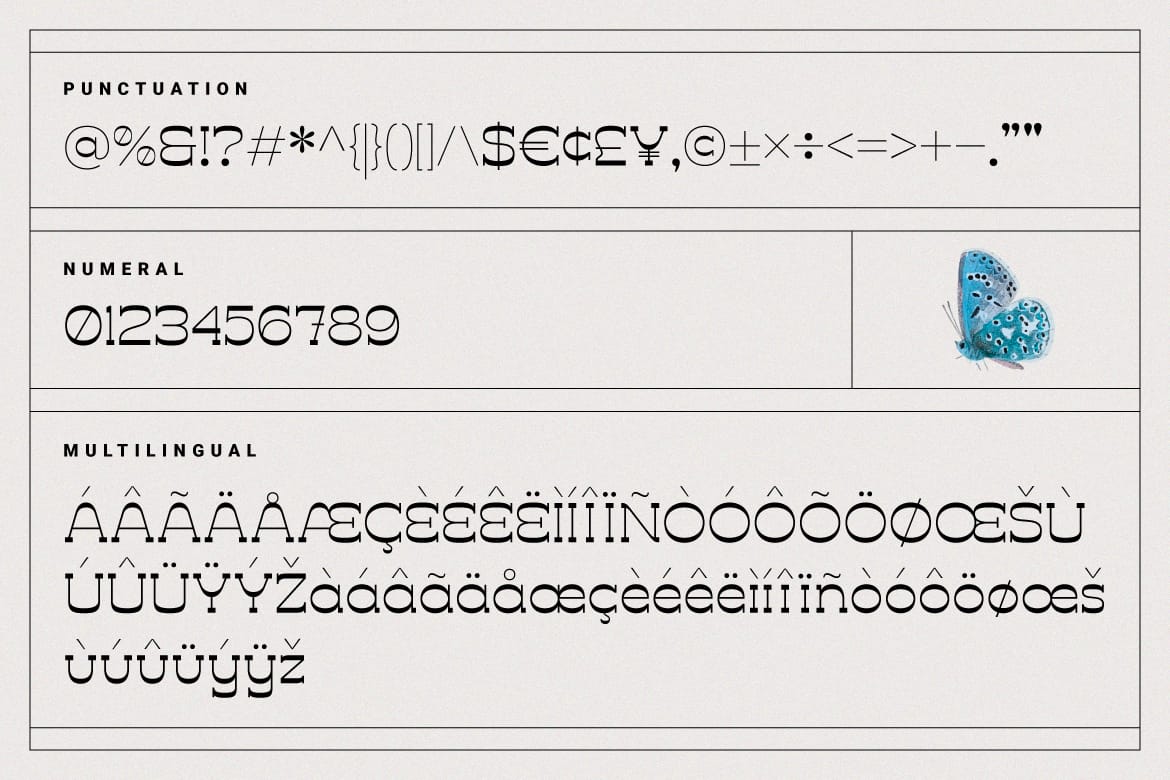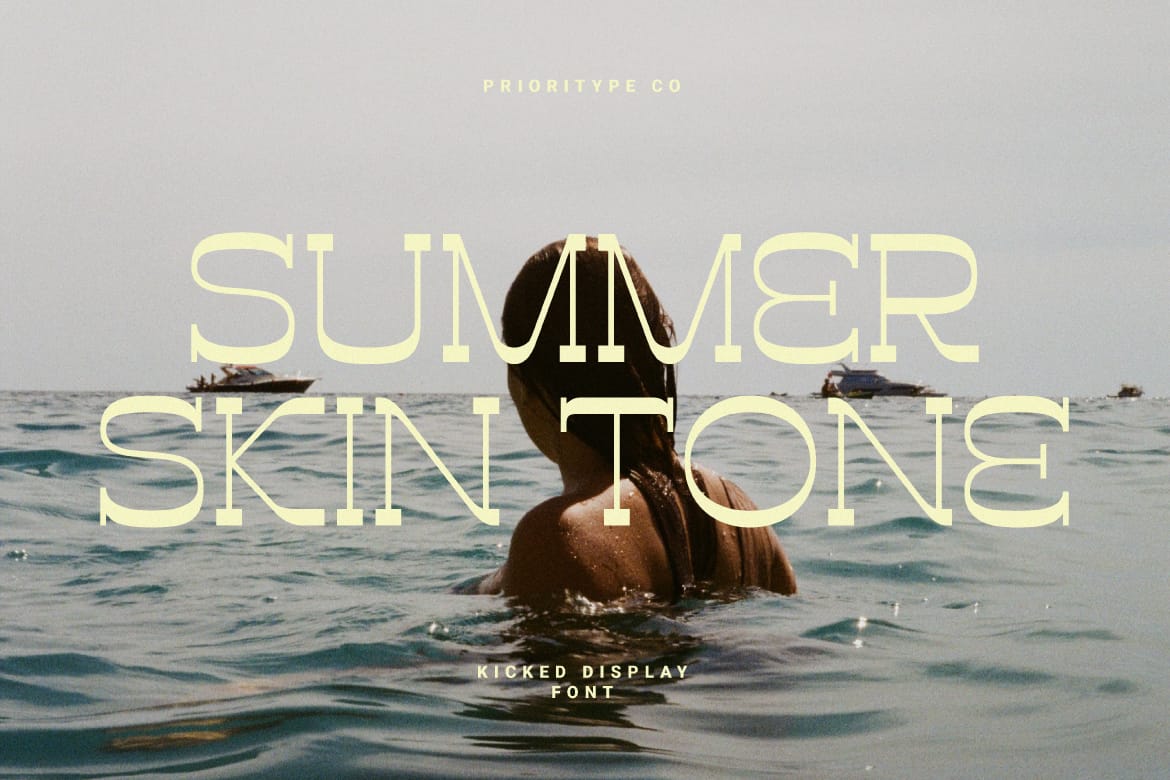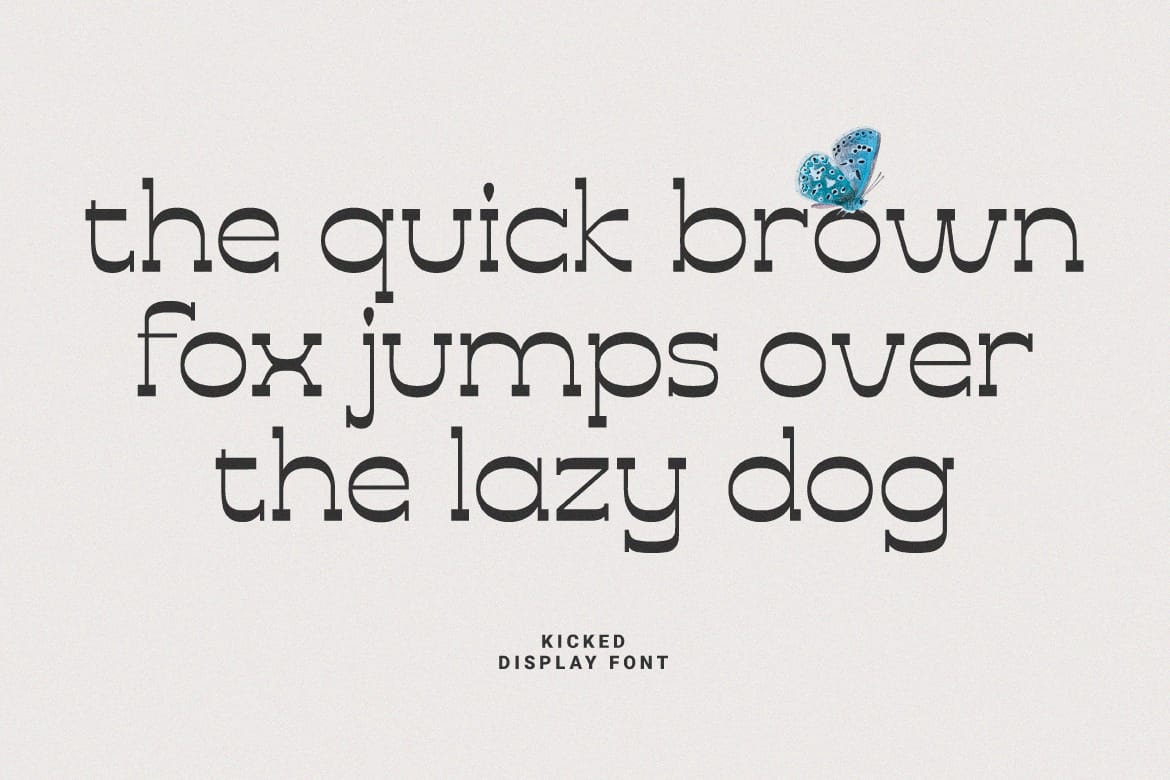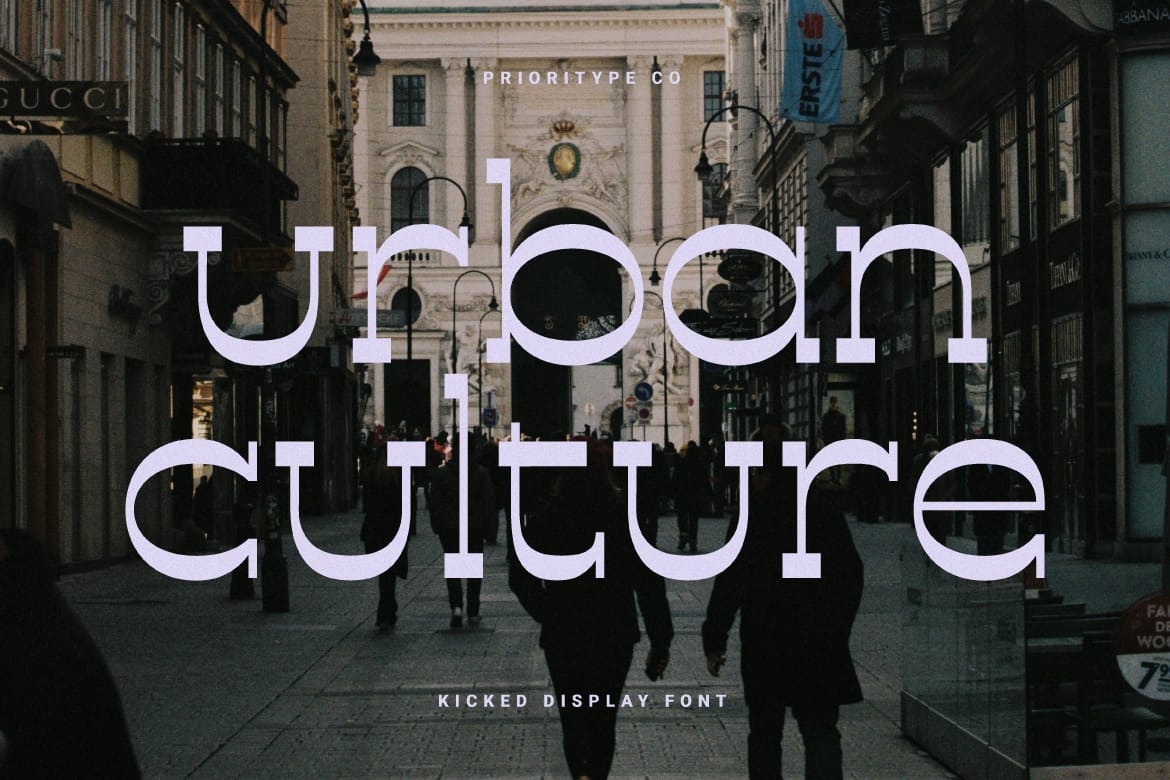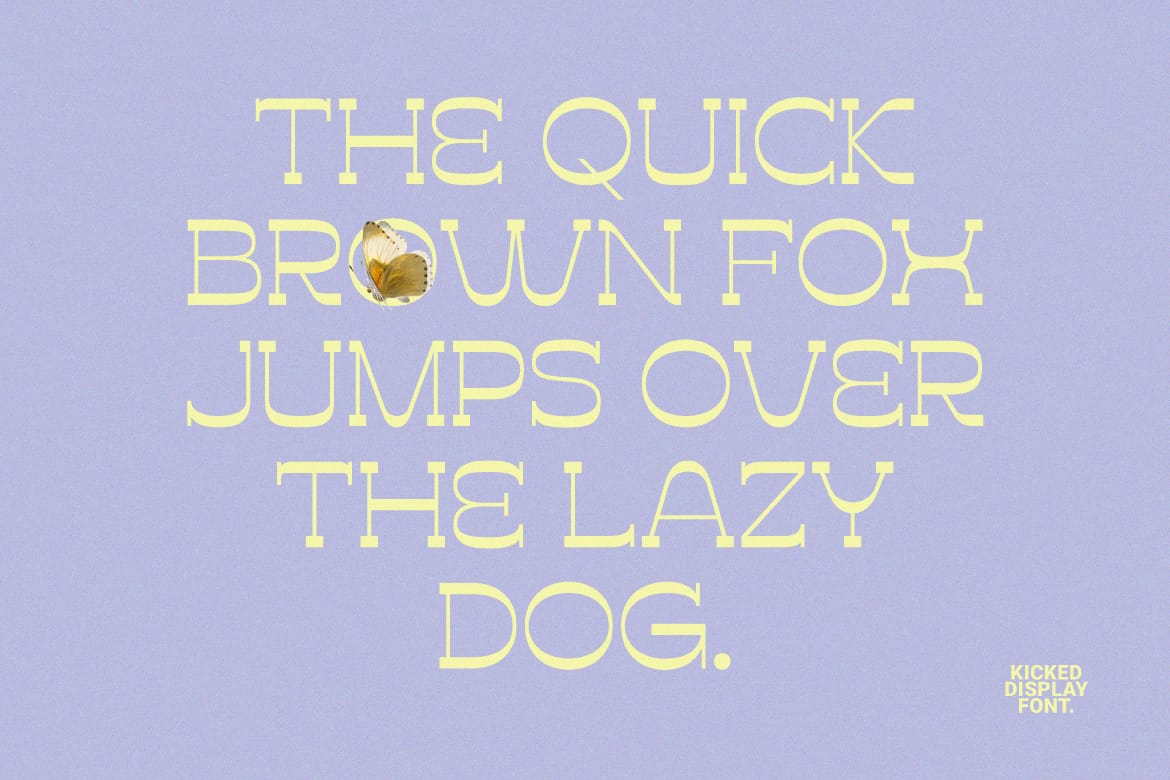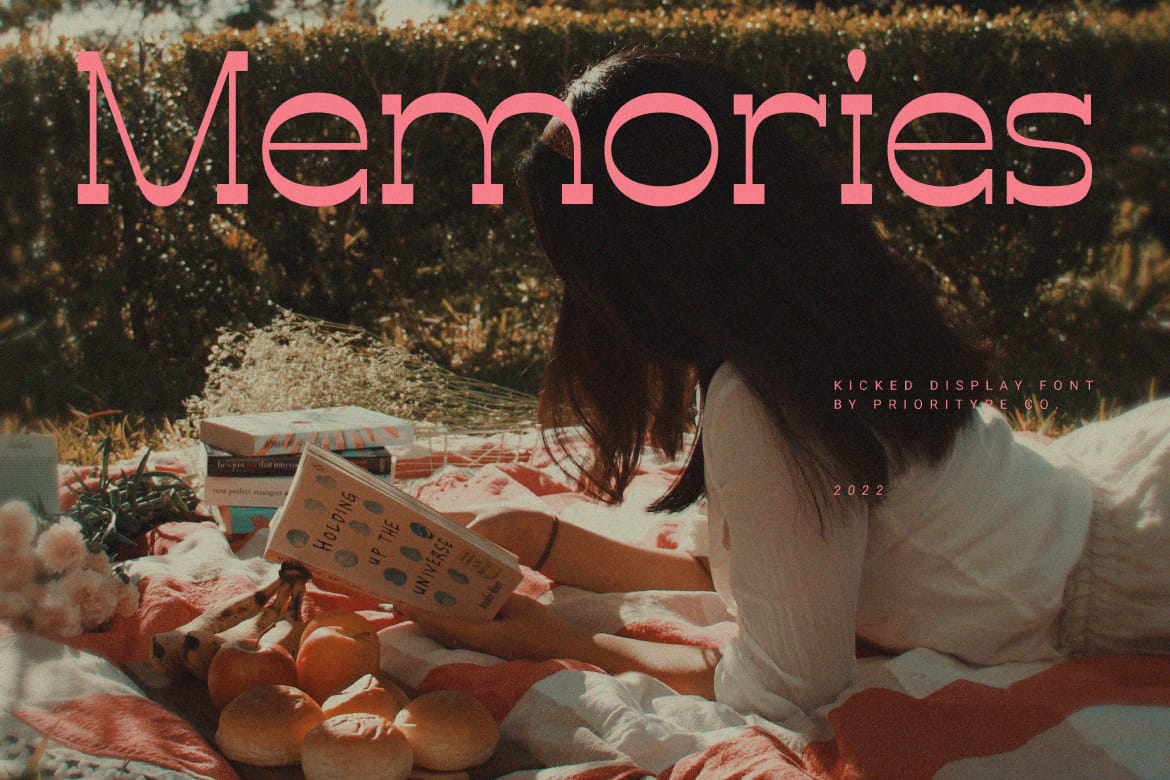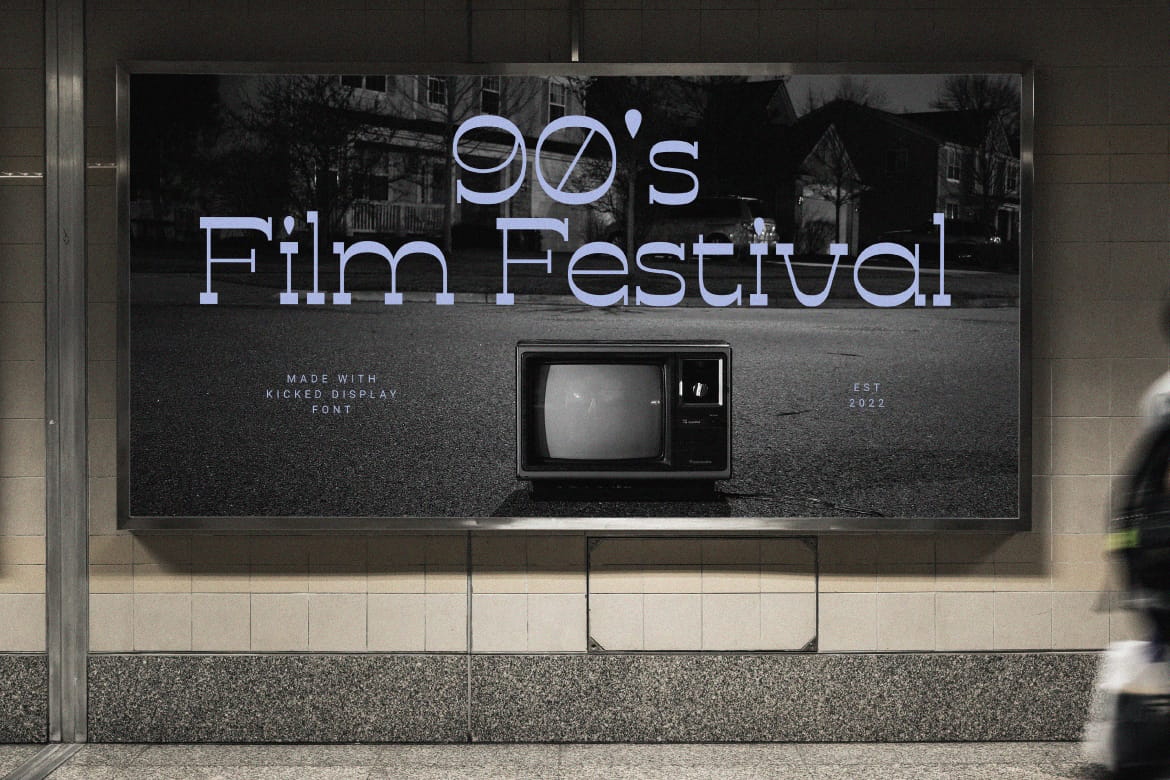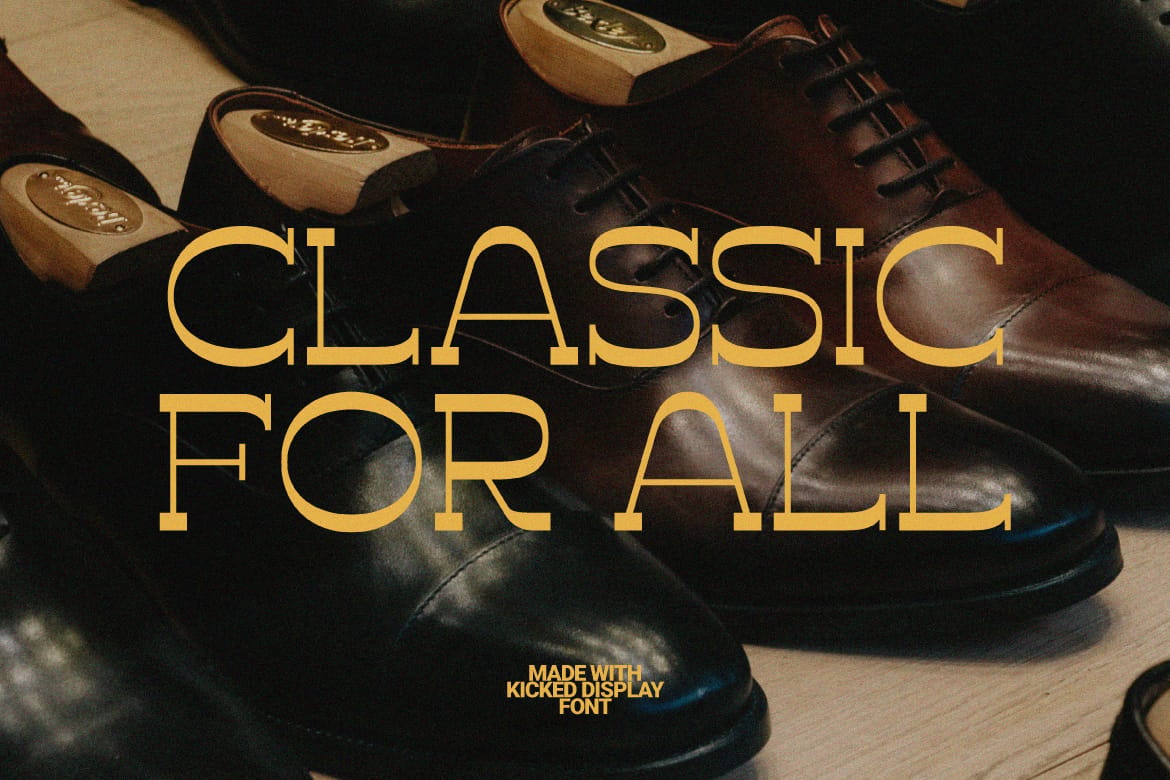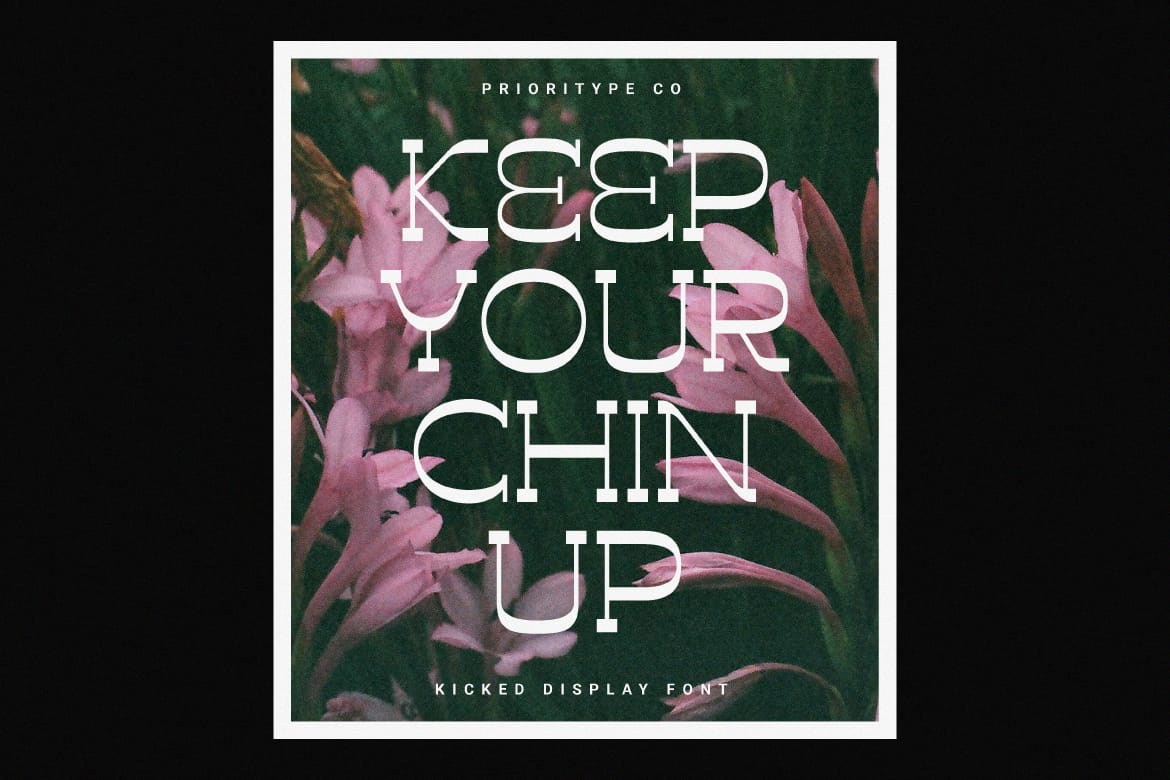
Kicked Display Font by Prioritype Co.
"Kicked Display" is a display font with a unique and bold contrasting style. It is this bold and thin that makes this font memorable. Designing with pastel colors also looks more maximal with this font.
Features: Uppercase, Lowercase, Numeral, Punctuation & Multilingual.
- Bold contrasting display typeface
- Great with pastel color designs